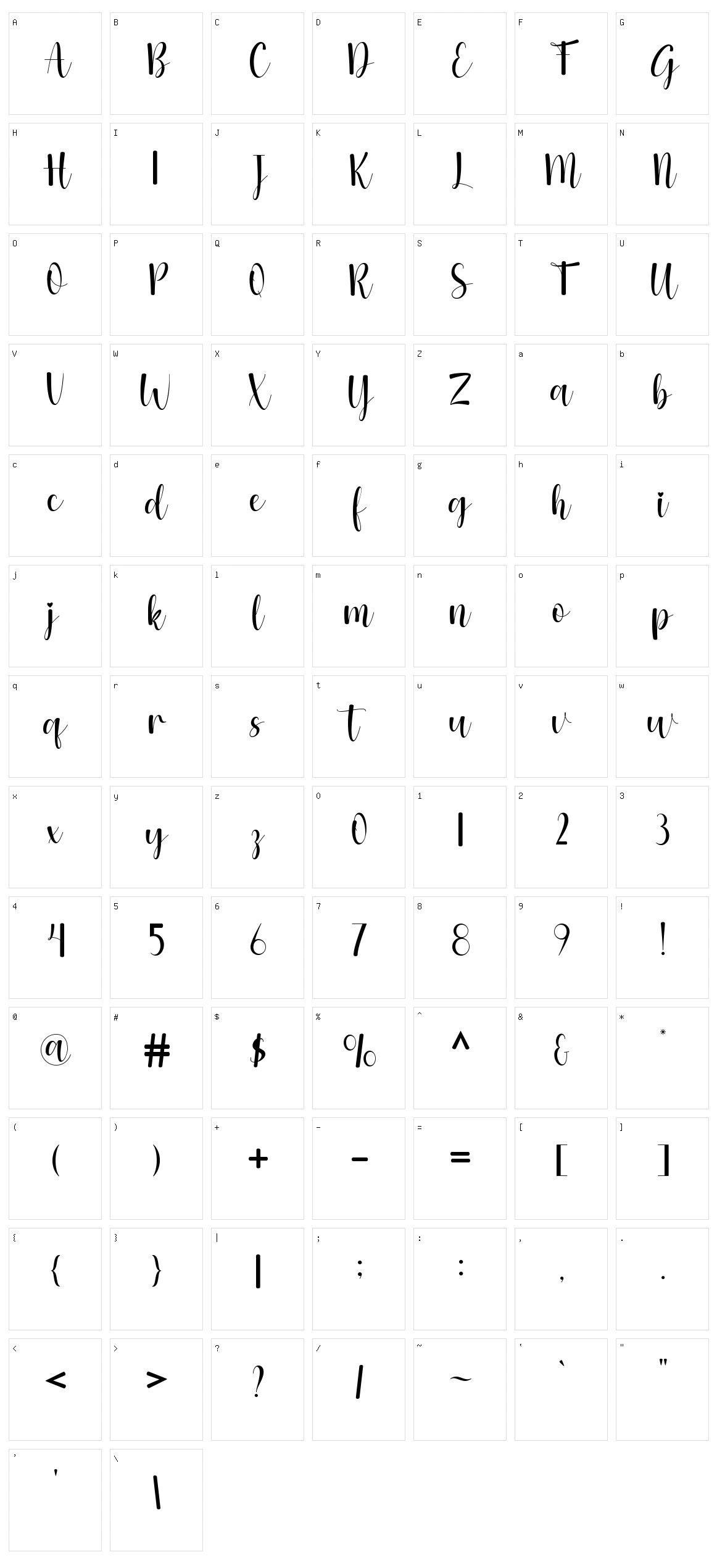
The free font Natalia is carefully designed by Wahyu Studio, showcasing a thoughtful balance of creativity and usability and falls under the Script font style. When you download the ZIP file, it contains only 124.37 KB of font files, making it lightweight and quick to download. Please review the license details below to understand permitted usage and distribution rights. If license information is not available, we recommend using this font for personal projects only or contacting the author directly for commercial usage permissions.